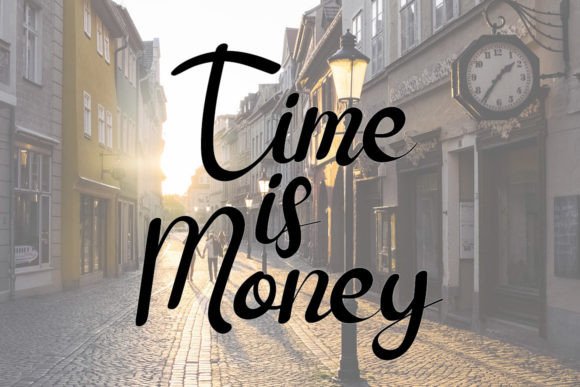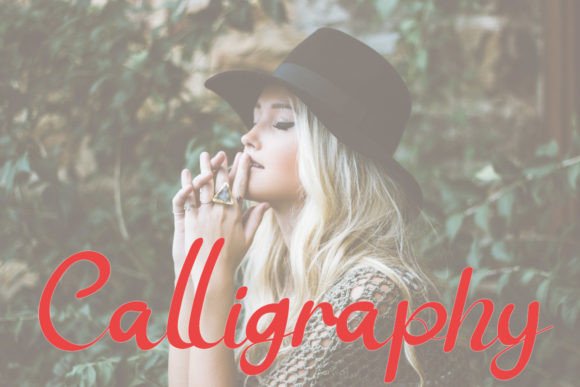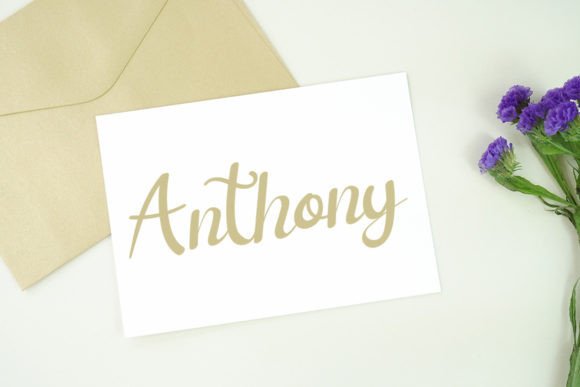
ποΈ About Vallestine Font
Vallestine is a sweet and elegant handwritten script font designed to bring charm, clarity, and warmth to your design projects. With its clean lines and graceful flow, Vallestine blends sophistication with a personal touch. Whether you’re creating a formal invitation or an informal greeting card, this font adapts beautifully to both scenarios.
Its handwritten nature gives it a sense of authenticity, while its clean execution keeps it polished and professional. This balance makes Vallestine a go-to choice for graphic designers, small business owners, and creatives looking to elevate their typography.
π― Where to Use Vallestine
The versatility of Vallestine makes it perfect for countless applications. Whether you’re designing print or digital, this font fits seamlessly into your workflow:
Wedding Invitations & Save-the-Dates: Romantic and refined
Branding & Logos: Ideal for boutique businesses and feminine brands
Greeting Cards & Stationery: Adds warmth and elegance
Social Media Posts & Quotes: Eye-catching and legible
Packaging Design: Perfect for handmade goods or luxury items
Blog Headers: Soft and stylish for lifestyle or fashion content
Product Labels: Clear, elegant, and memorable
T-shirt & Mug Designs: Clean script with wide appeal
β¨ Font Features
Vallestine doesnβt just look beautifulβitβs also built for ease and creative flexibility:
Handwritten script with balanced letterforms
Includes uppercase & lowercase characters
Full punctuation, symbols, and numbers
Multilingual support for extended global use
Whether you’re a professional designer or a DIY enthusiast, Vallestine makes your process smoother while delivering high-end results.
π‘ Why Designers Love Vallestine
Vallestine stands out because of its ability to evoke emotion without sacrificing professionalism. It has a timeless charm that makes it perfect for anything from heartfelt notes to brand identities. The flowing strokes and subtle curves give it a soft, inviting toneβwhile still maintaining structure and readability.
If you’re looking for a handwritten script font that feels personal yet polished, Vallestine is the answer. It offers a human touch with a touch of luxury, helping your designs feel more intimate and more memorable.